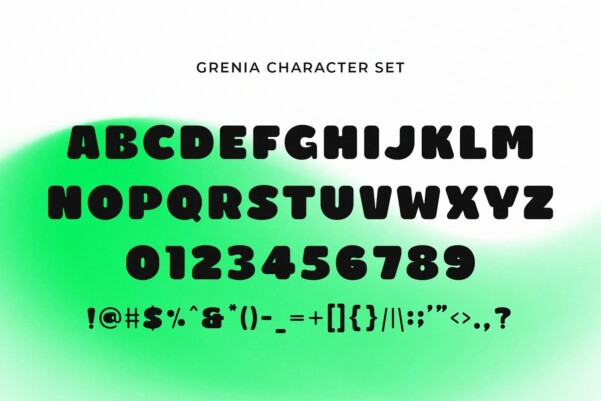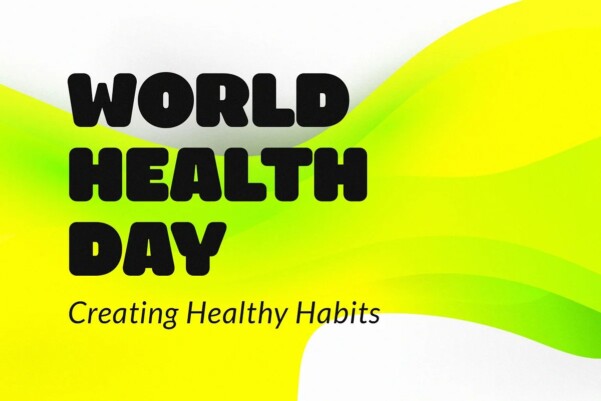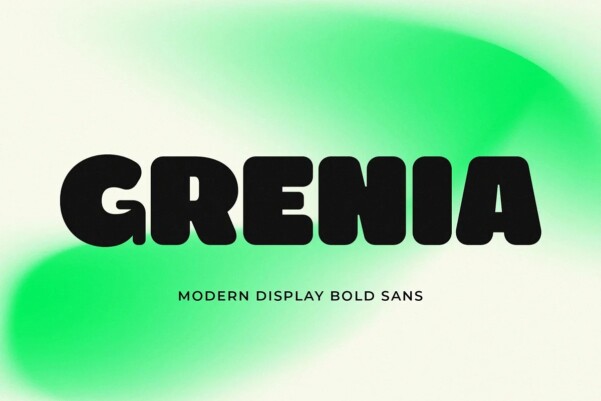
Grenia Font
Grenia Font – Modern Display Bold Sans. Grenia is a modern and simple font, best used as a display for headings, logos, branding, magazines, product packaging and invitations.